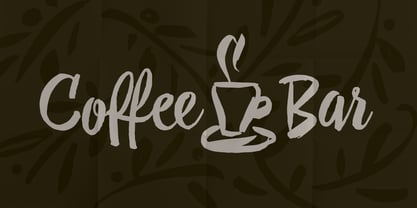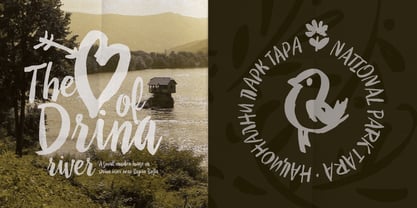
Drina
by Posterizer KG
Drina Font Family was designed by Lazar Dimitrijević and published by Posterizer KG. Drina contains 1 styles.
Drina is a script handwritten font with a casual and modern look. Because of the spontaneity there are plenty of Standard and Discretionary Ligatures to avoid frequent repetition of letters. If you find a single repeating glyphs, you can change that by toggling between Stylistic Alternates. There are ligatures created for Cyrillic too, more then 100 symbols, ornaments and artworks with inky texture. Drina is the perfect choice for all natural and authentically beautiful things.